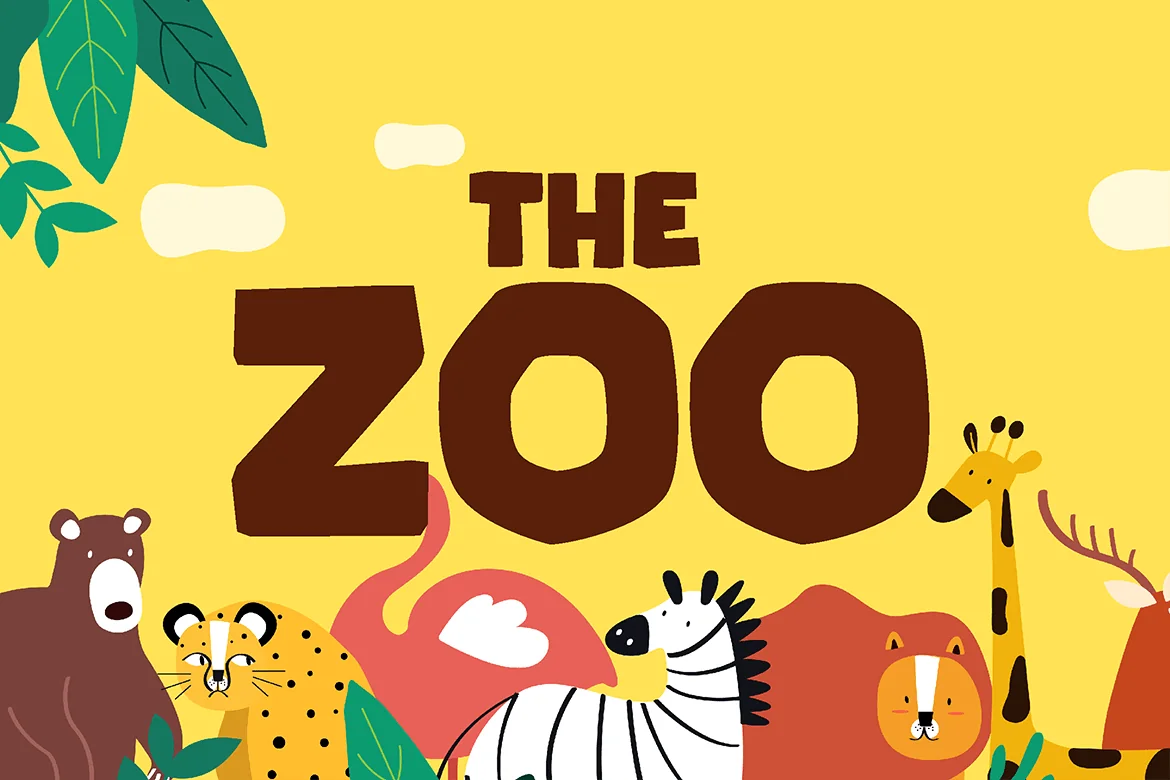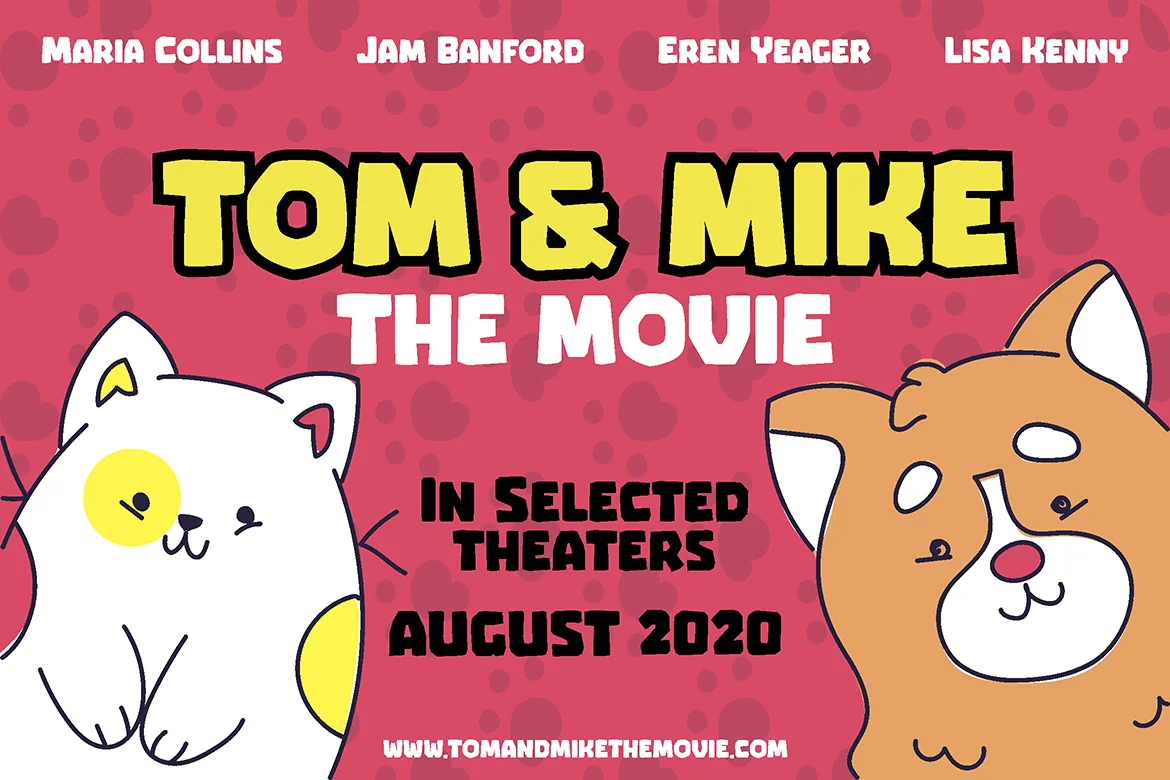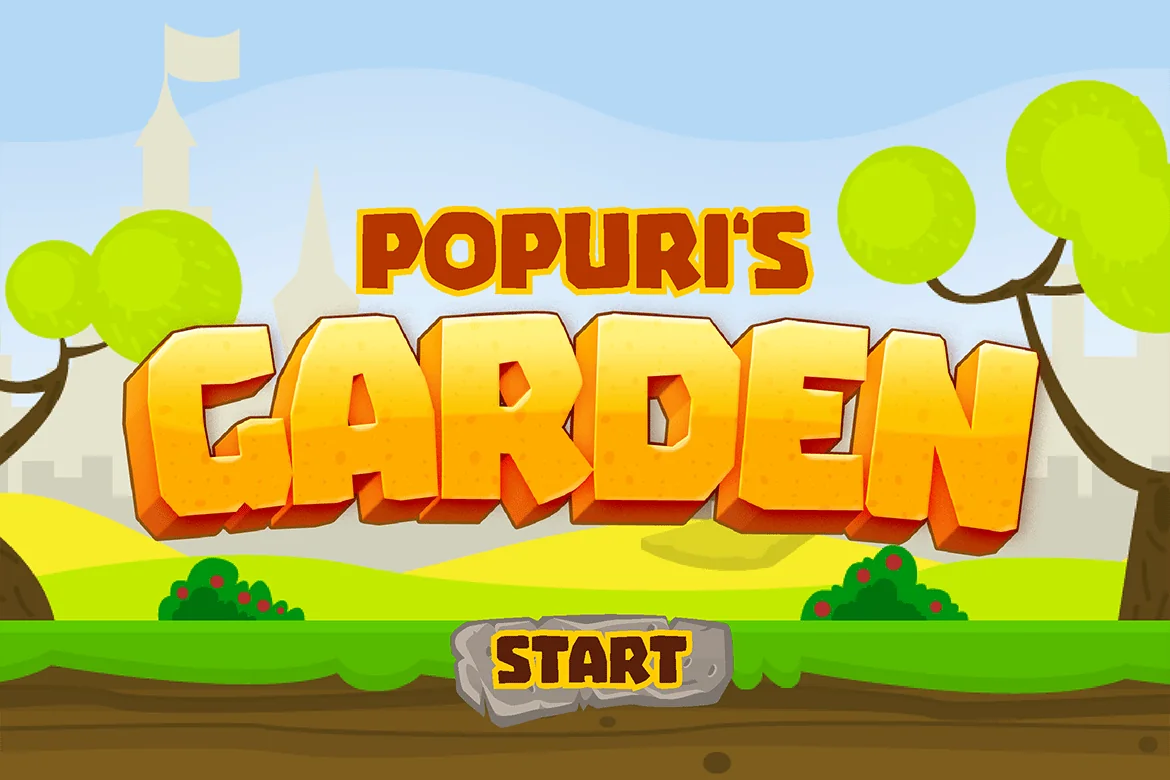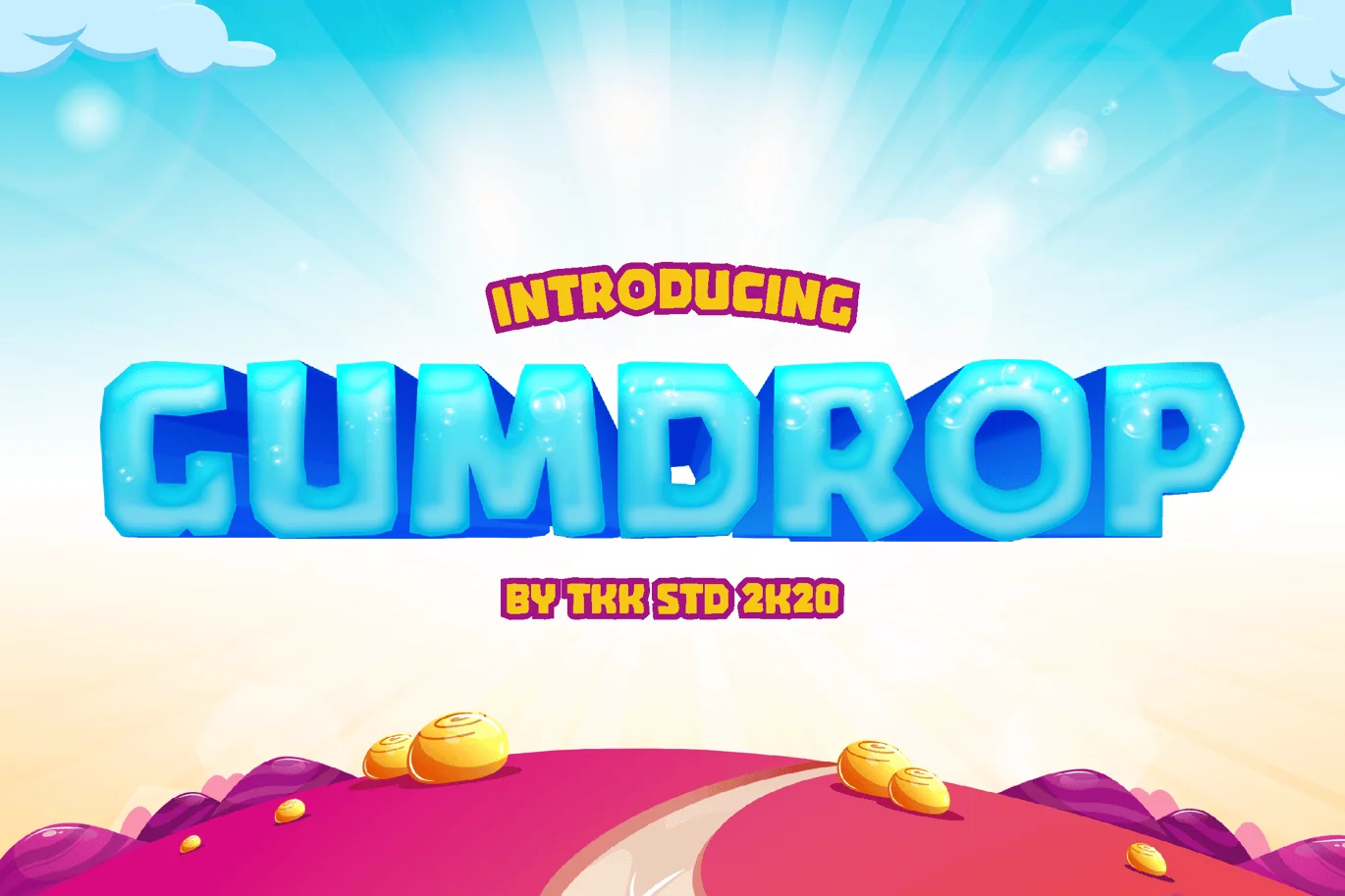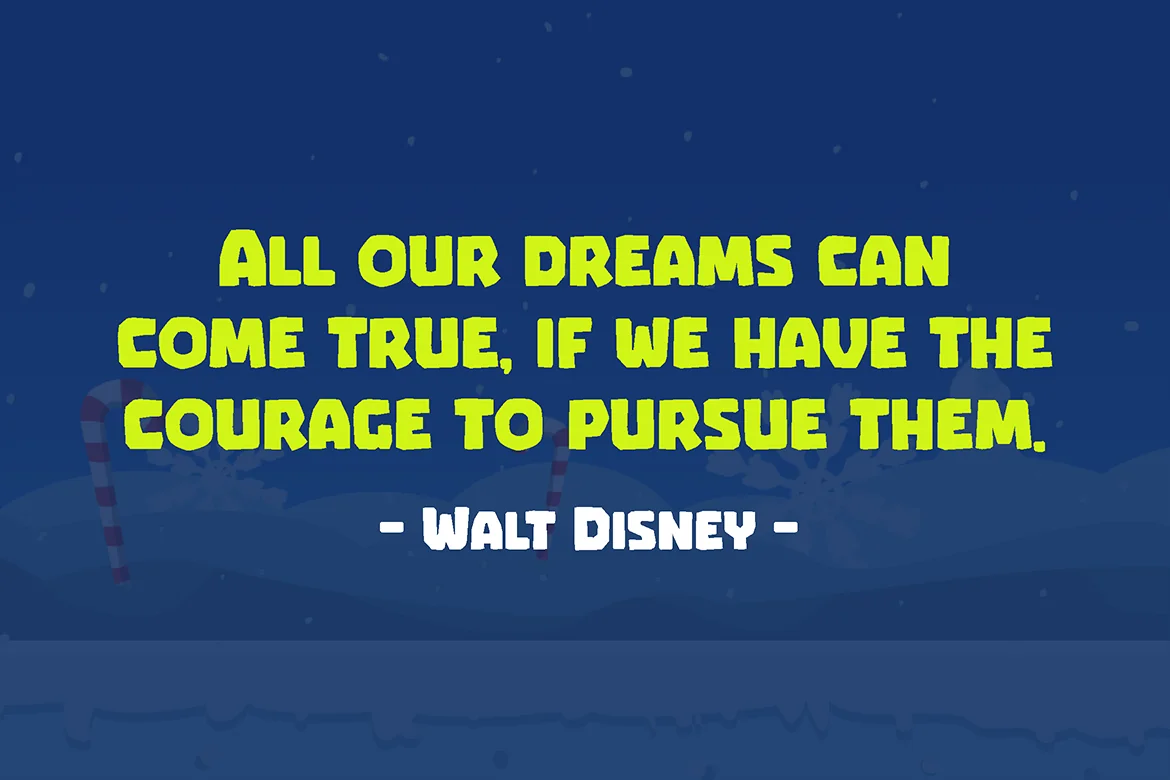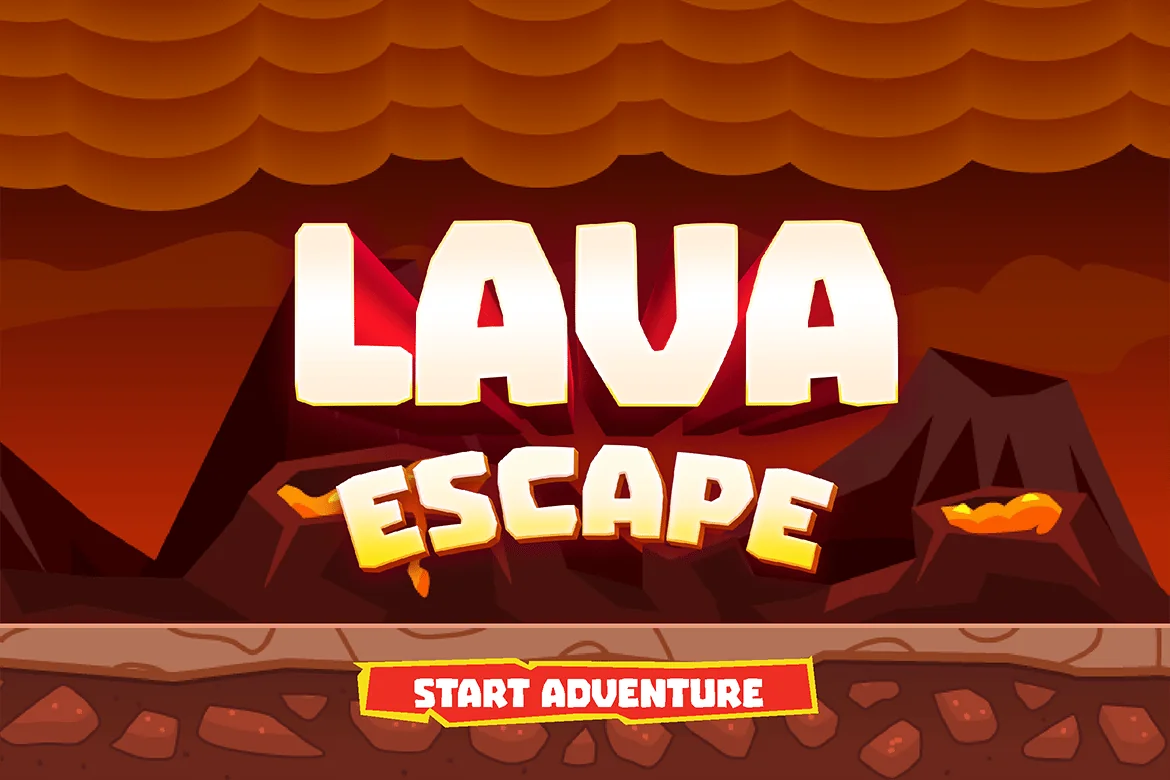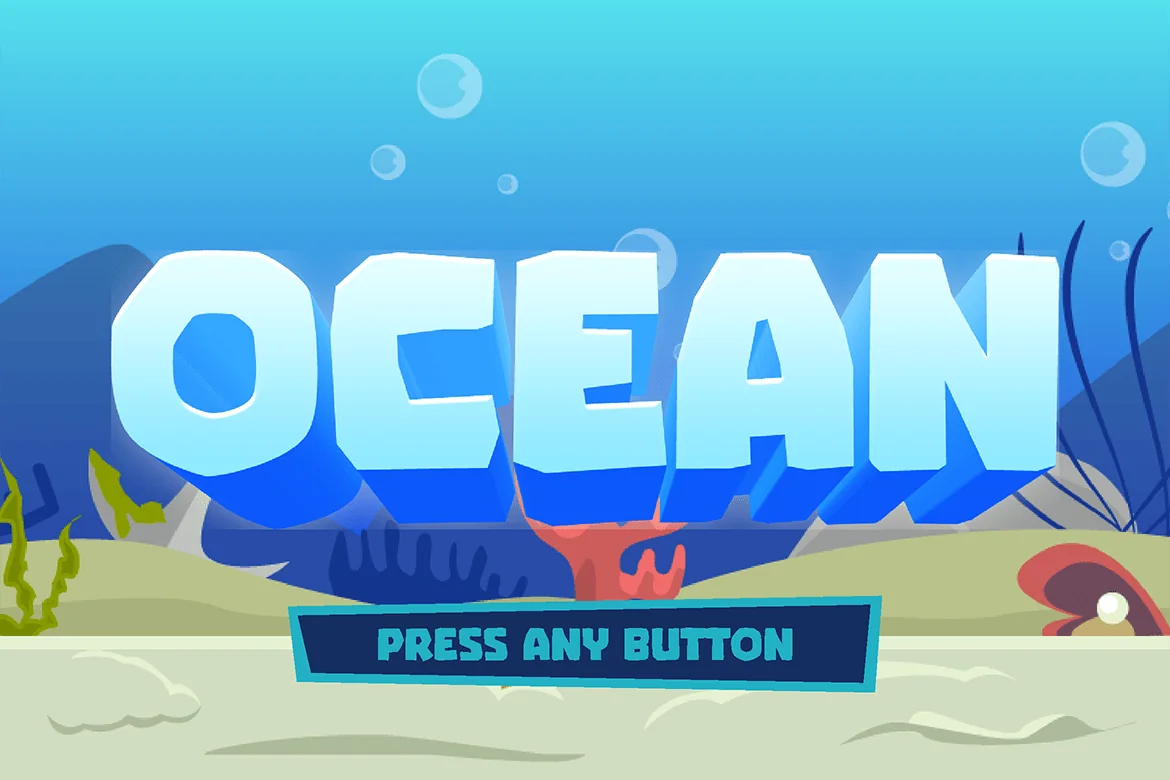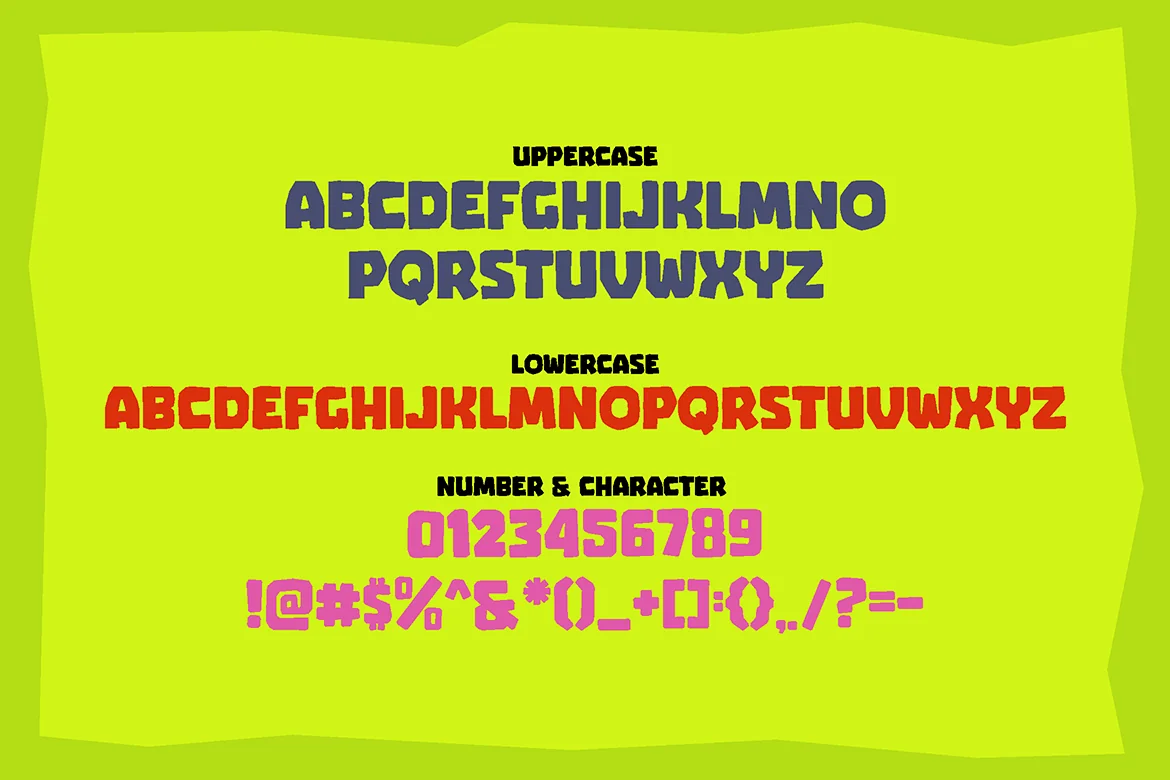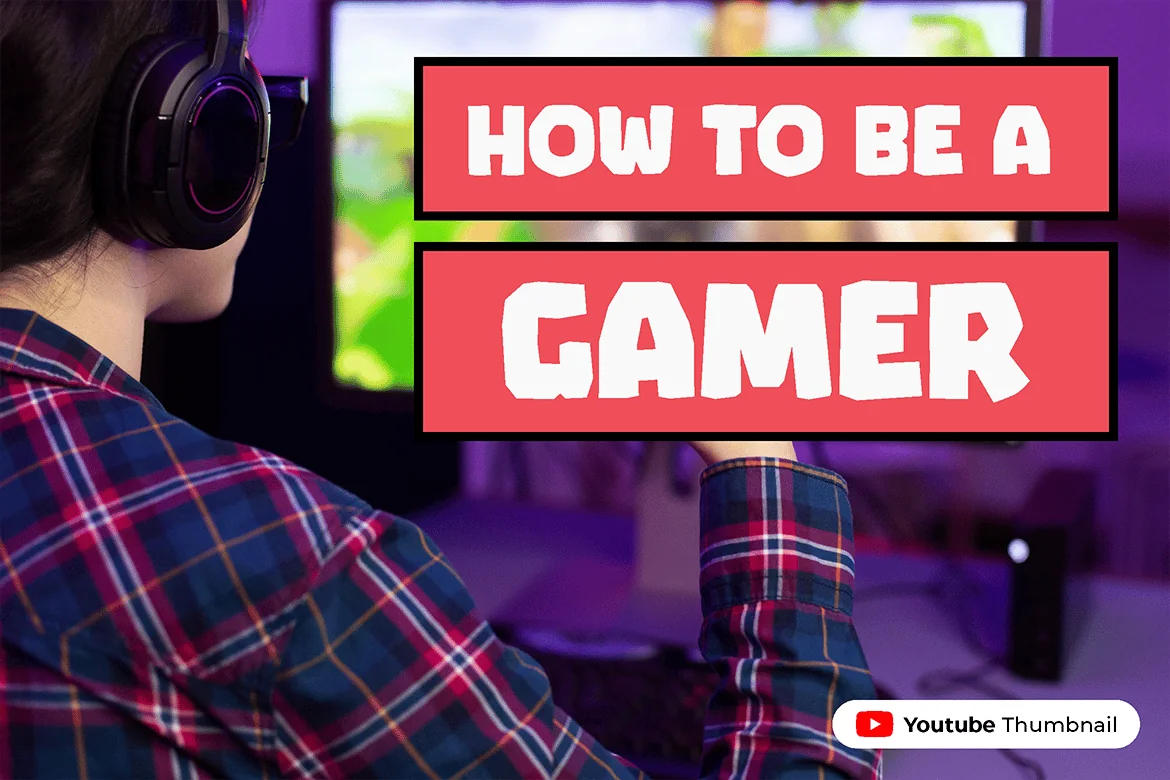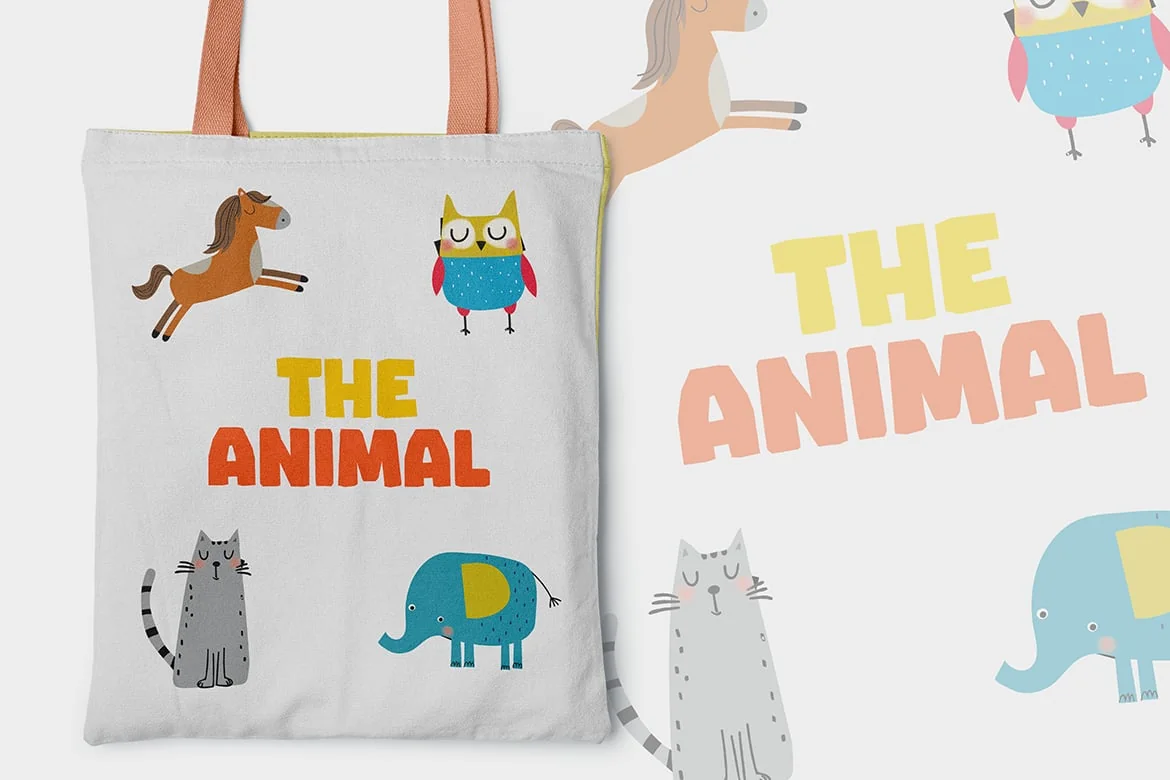
GUMDROP – Block Gaming font
GUMDROP – taste of adventure
GUMDROP is a blocky shape font with a fun attitude.
Suit perfectly for online games, android or ios game, adventure poster, children movie title, fast food menu, magazine, youtube covers, youtube thumbnails, social media page covers and so on…